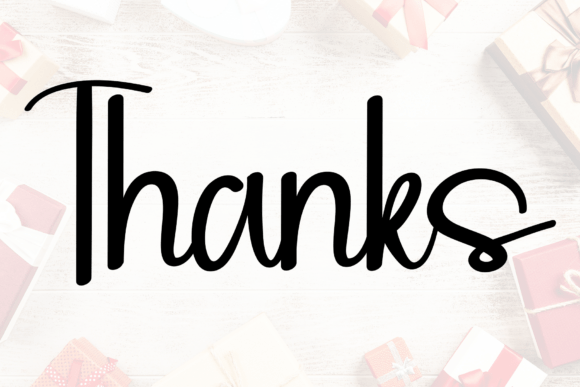
Introduction to Christmas Relation Font
Do you remember the first time you created something special for someone you love? Maybe it was a handmade card, a customized gift, or a festive decoration that filled the room with warmth and joy. Whatever it was, it’s likely that a key element was the font you chose – the one that made your project truly stand out and convey your emotions. For many designers, finding the perfect font can be a game-changer, especially during the holiday season when we want to express our love and appreciation in the most creative and personal way possible.
Enter Christmas Relation Font, a beautiful and versatile script font that embodies the spirit of the season. With its warm, bouncy feel and charming, imperfect connections between letters, this font is the perfect choice for any creative project that requires a touch of magic and personality.
Whether you’re a seasoned designer or a crafty enthusiast, Christmas Relation Font is a valuable resource that will help you bring your ideas to life. Its high-quality design and transparent background make it perfect for digital and physical crafting applications, and its full character set and decorative elements like ligatures ensure that your projects will be truly one-of-a-kind.
Key Features of Christmas Relation Font
- High-quality design resource ideal for various creative projects, including holiday greeting cards, gift tags, and festive posters.
- Unique, intricate design featuring a mix of traditional and modern elements, perfect for adding a touch of elegance to any Christmas-themed project.
- Perfect for designers looking for a high-quality, unique, and versatile font to elevate their creative projects and stand out from the crowd.
Honest Review: Christmas Relation Font
As a designer, I was excited to dive into the Christmas Relation Font, a free download that promised to bring a touch of festive cheer to my creative project. Upon closer inspection, I was pleased to find that this font delivers on its promise. ✨
The Christmas Relation Font is a high-quality design resource that’s perfect for anyone looking to add a personal touch to their holiday designs. The transparent background allows for seamless integration with other design elements, making it easy to use in a variety of creative projects.
Here are some of the things that work well with the Christmas Relation Font:
- Unique and festive design aesthetic
- High-quality vector graphics
However, I did encounter a few limitations with this font:
- Limited character set (only includes uppercase and lowercase letters, with some punctuation)
- No support for special characters or emojis
Overall, I’m impressed with the Christmas Relation Font. While it’s not perfect, it’s a great addition to any designer’s toolkit, especially during the holiday season. With a little creativity, you can use this font to create some truly unique and festive designs. ⚠️
The Christmas Relation Font is perfect for use in holiday-themed creative projects, such as greeting cards, invitations, and social media graphics. It’s also great for use in branding and marketing materials, such as logos and brochures. With its free download and high-quality design, this font is a valuable addition to any design resource library.